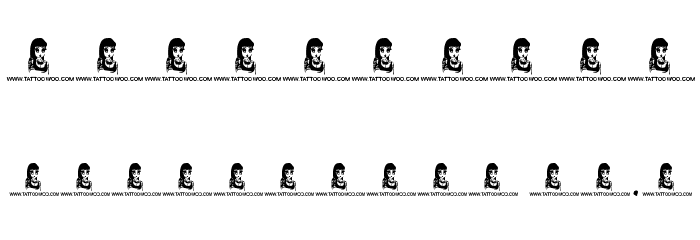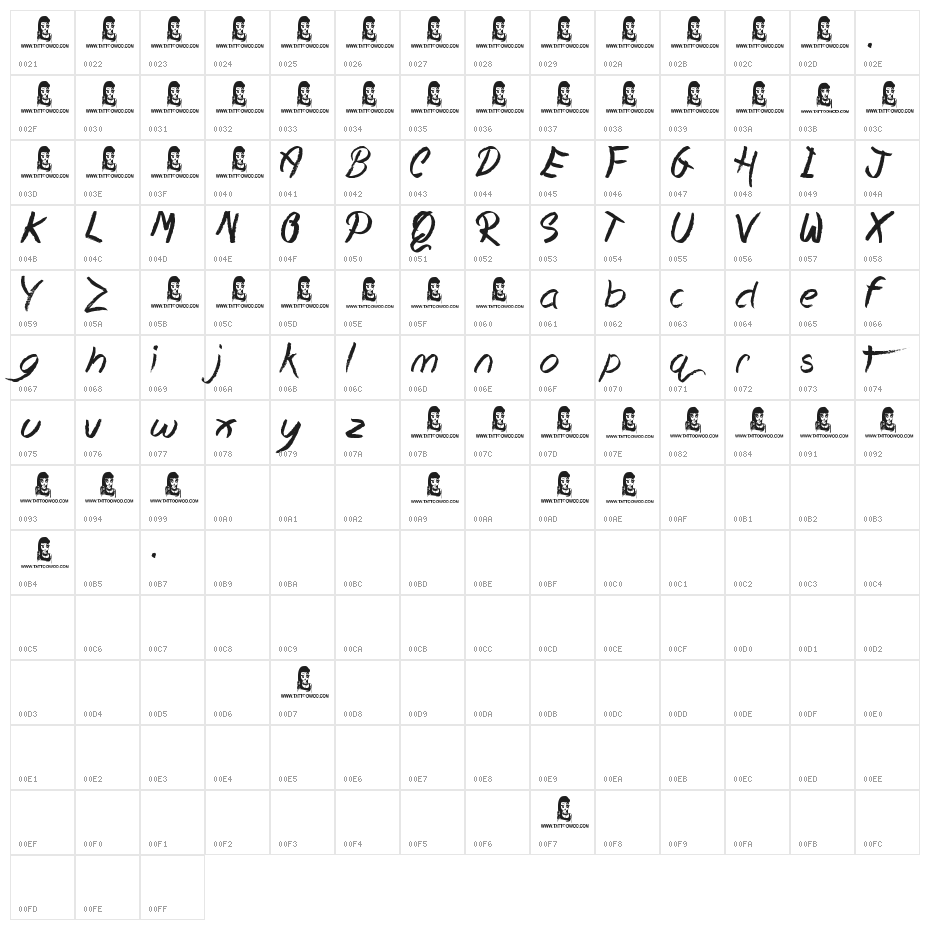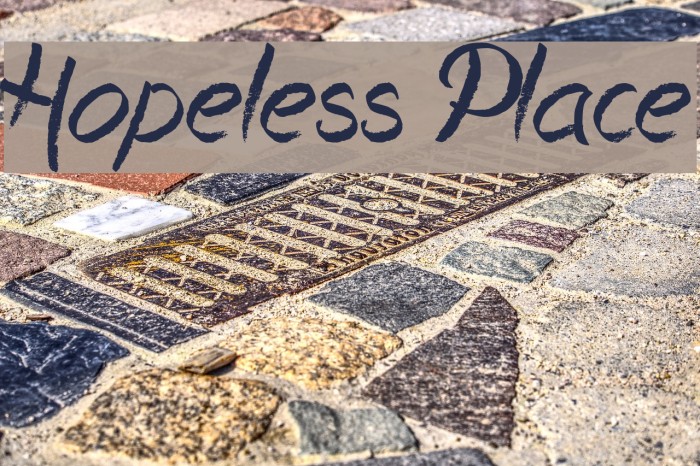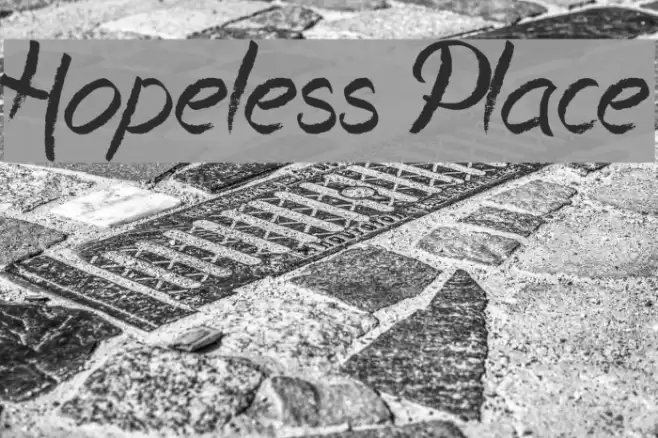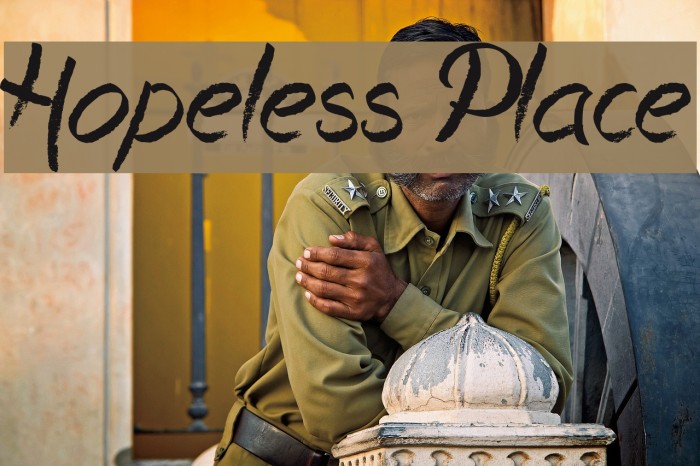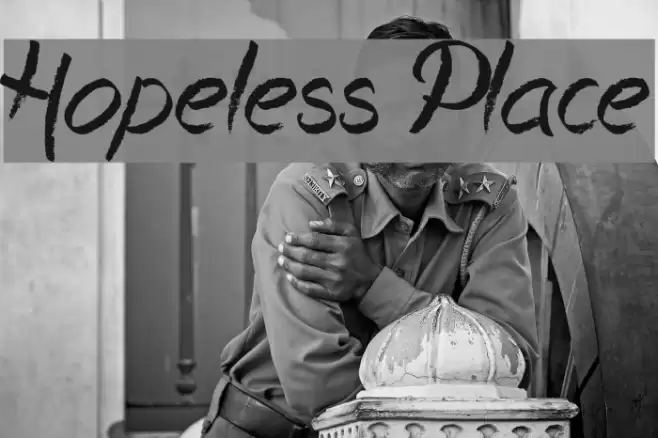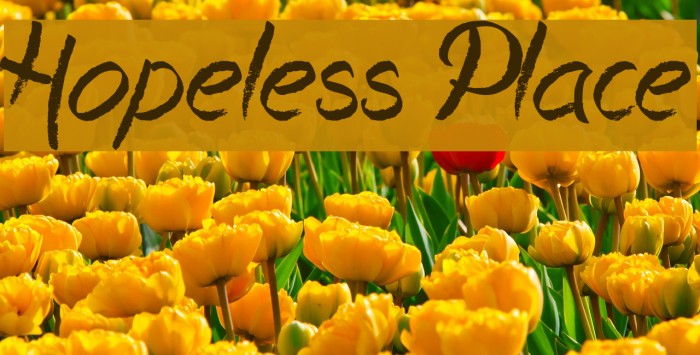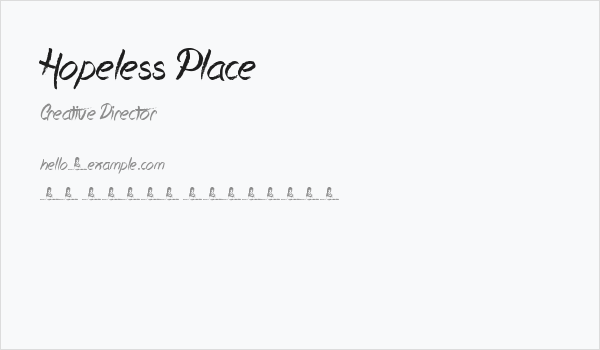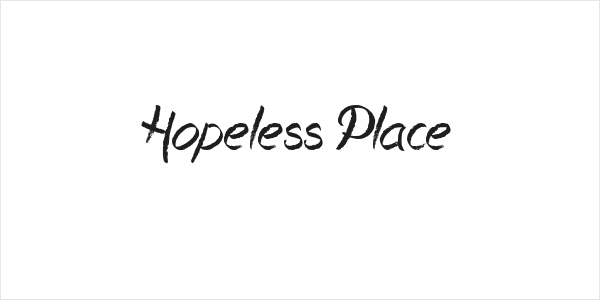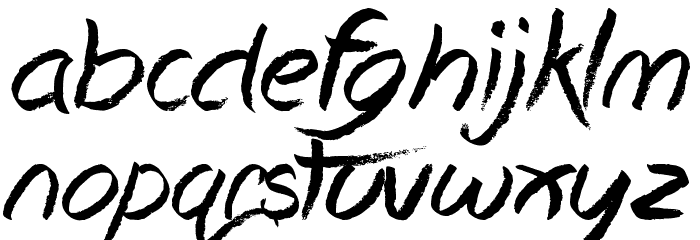
Hopeless Place Font
Hopeless Place Description
This font exudes a raw, expressive energy with its bold, brush-like strokes. Each character is crafted with a dynamic flair, showcasing irregular edges and a slightly distressed texture that adds to its handmade appeal. The uppercase letters are particularly striking, with a sense of movement and spontaneity, while the lowercase letters maintain a consistent style that complements the uppercase. The numerals and special characters follow the same artistic theme, ensuring a cohesive look across all text. This font is perfect for projects that require a personal touch or a sense of artistic rebellion.
| Use Case | Logos, Posters, Headlines |
| Proposed Projects | Ideal for album covers, posters, branding for creative industries, and any design needing a bold, artistic statement. |